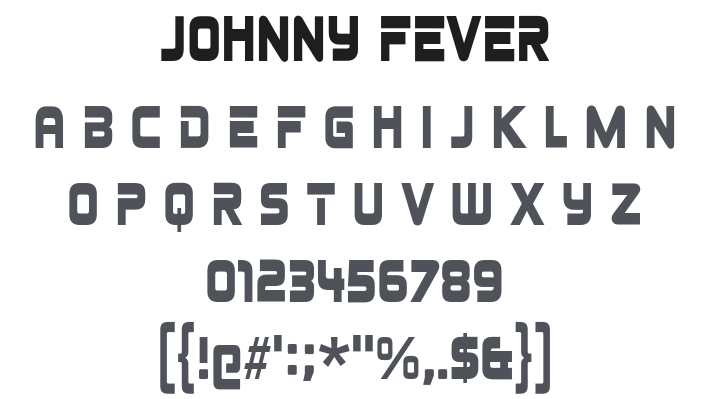
Johnny Fever Font
About Johnny Fever
Johnny Fever is a bold 1980s-style techno display typeface inspired by Amiga 4K demo scene graphics — its sharp, futuristic letterforms carry a robotic, extraterrestrial voice that feels straight off a glowing CRT monitor. Perfect for retro game titles, sci-fi branding, demo scene tributes, arcade posters, and anything channeling the electric nostalgia of 80s computing culture.